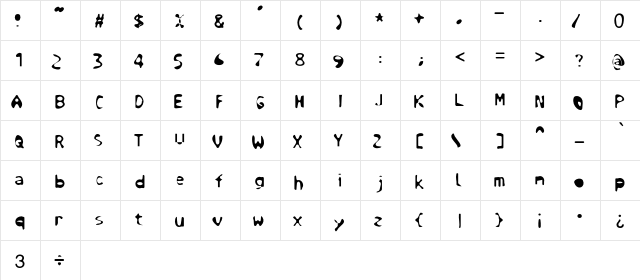
Steroid Regular
Design Context for Steroid Typeface
Steroid is a composed and adaptable typeface that performs quietly and consistently across a wide range of design contexts.